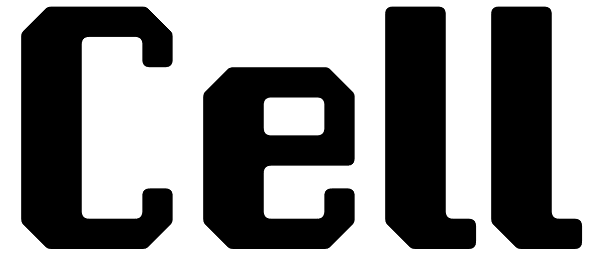
Cell
Cell is a sturdy, geometric typeface with many potential applications. Though it is best suited to display sizes, its construction is simple enough for use in smaller settings. Its octagonal, almost mechanical design is softened by rounded corners...
Cell Italic
Cell